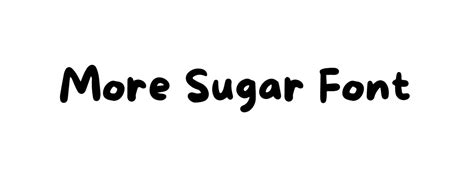
More Sugar Font
More Sugar Font. You can combine 2 styles in this. Web more sugar hand written font is a mixture of creative and simple.
Web more sugar font specimen. You can combine 2 styles in this. The natural stroke creates casual look & feel that will be perfect for various project. Web more sugar hand written font is a mixture of creative and simple. More sugar hand written font is a mixture of creative and simple. The natural stroke creates casual look & feel that will be perfect for various project. The natural stroke creates a casual look & feel that will be perfect for various projects. More sugar is a fun and bouncy handwritten font, capable of making your designs have a simple but nuanced design. Web more sugar font is a mixture of creative and simple.
You can combine 2 styles in this. The natural stroke creates casual look & feel that will be perfect for various project. More sugar hand written font is a mixture of creative and simple. The natural stroke creates casual look & feel that will be perfect for various project. More sugar is a fun and bouncy handwritten font, capable of making your designs have a simple but nuanced design. Web more sugar hand written font is a mixture of creative and simple. Web more sugar font is a mixture of creative and simple. You can combine 2 styles in this. The natural stroke creates a casual look & feel that will be perfect for various projects. Web more sugar font specimen.